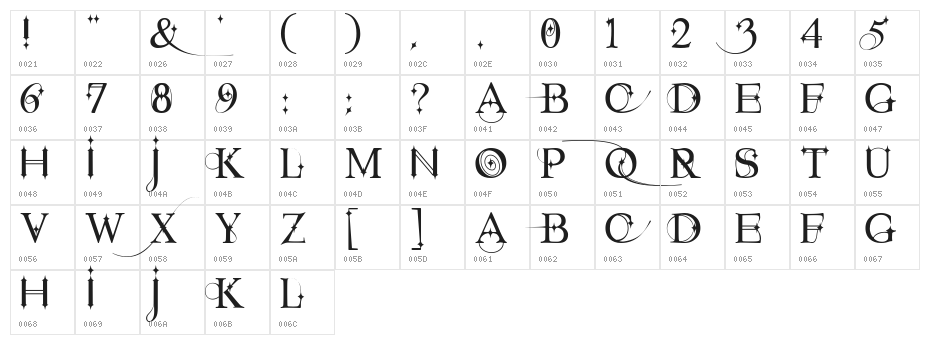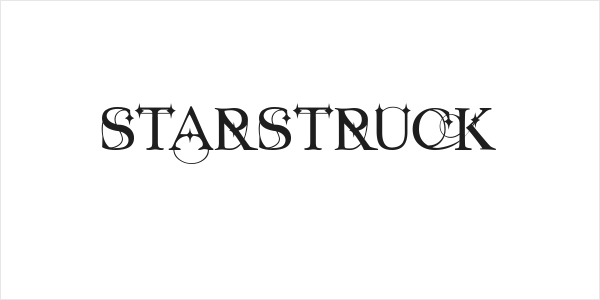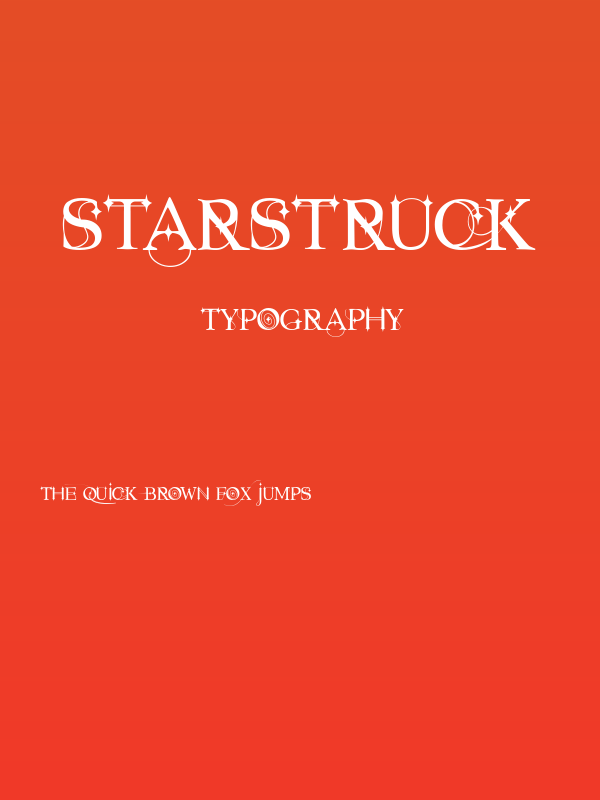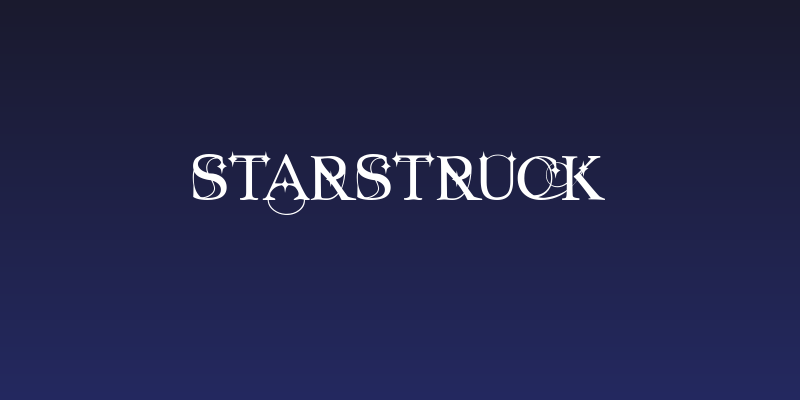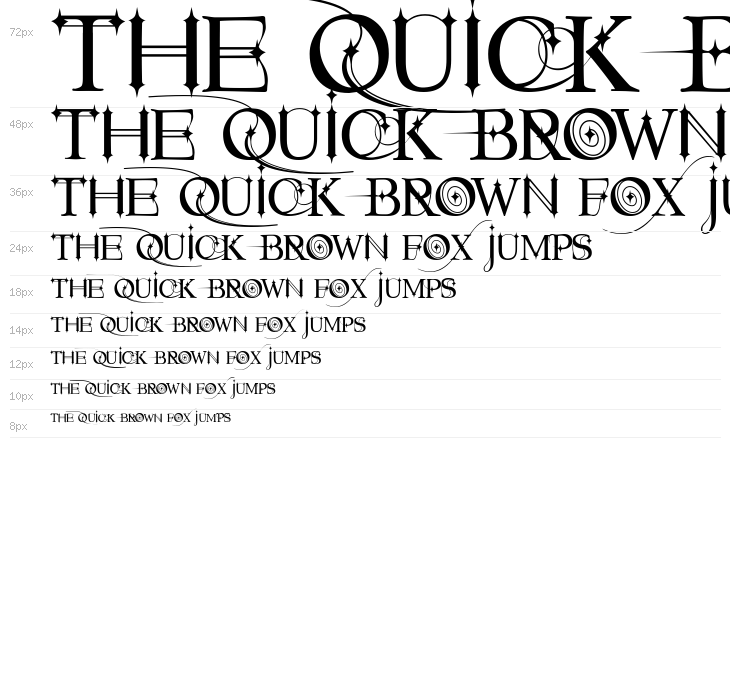
Starstruck Font
Starstruck Description
This font features a unique and decorative style with a celestial theme, incorporating star-like embellishments and swirls into the characters. The uppercase and lowercase letters are designed with a sense of elegance and flair, making them stand out with their intricate details. The numbers follow the same decorative pattern, ensuring consistency throughout the typeface. Special characters are also adorned with similar embellishments, enhancing the overall aesthetic. The font's design is both artistic and whimsical, suitable for projects that require a touch of fantasy or a magical atmosphere.
| Proposed Projects | Ideal for fantasy book covers, magical event invitations, or whimsical branding projects. |